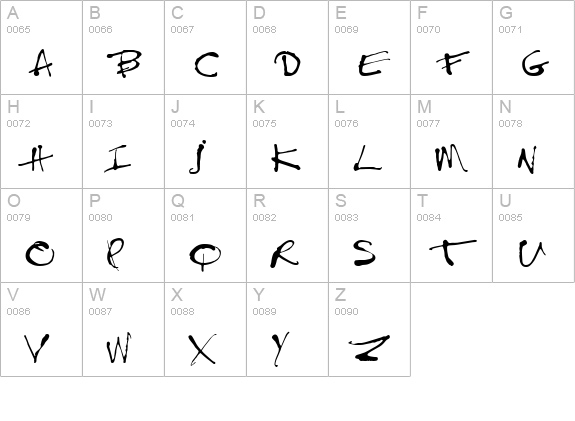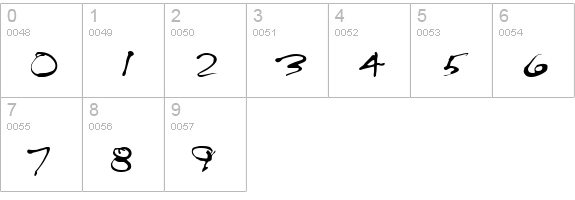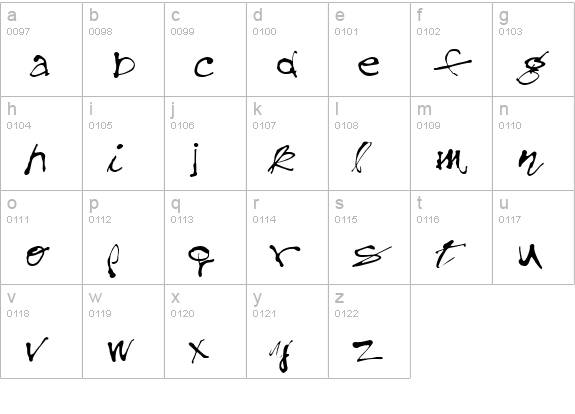
Utopia Font Details
Utopia font is a timeless and elegant typeface that exudes sophistication and clarity. With its balanced proportions and graceful curves, Utopia is perfect for a wide range of design projects, from editorial layouts to branding materials. This versatile font is ideal for conveying a sense of modernity and professionalism while maintaining a touch of classic elegance. What sets Utopia font apart is not only its aesthetic appeal but also its accessibility. This exquisite typeface is available for free download at FontsMarket.com, making it easily accessible to designers and creatives looking to elevate their projects with a touch of refinement. Whether you're working on a printed publication, website design, or marketing collateral, Utopia font is sure to enhance your work with its timeless beauty and effortless readability. Unlock the potential of your designs with Utopia font – download it for free today at FontsMarket.com.